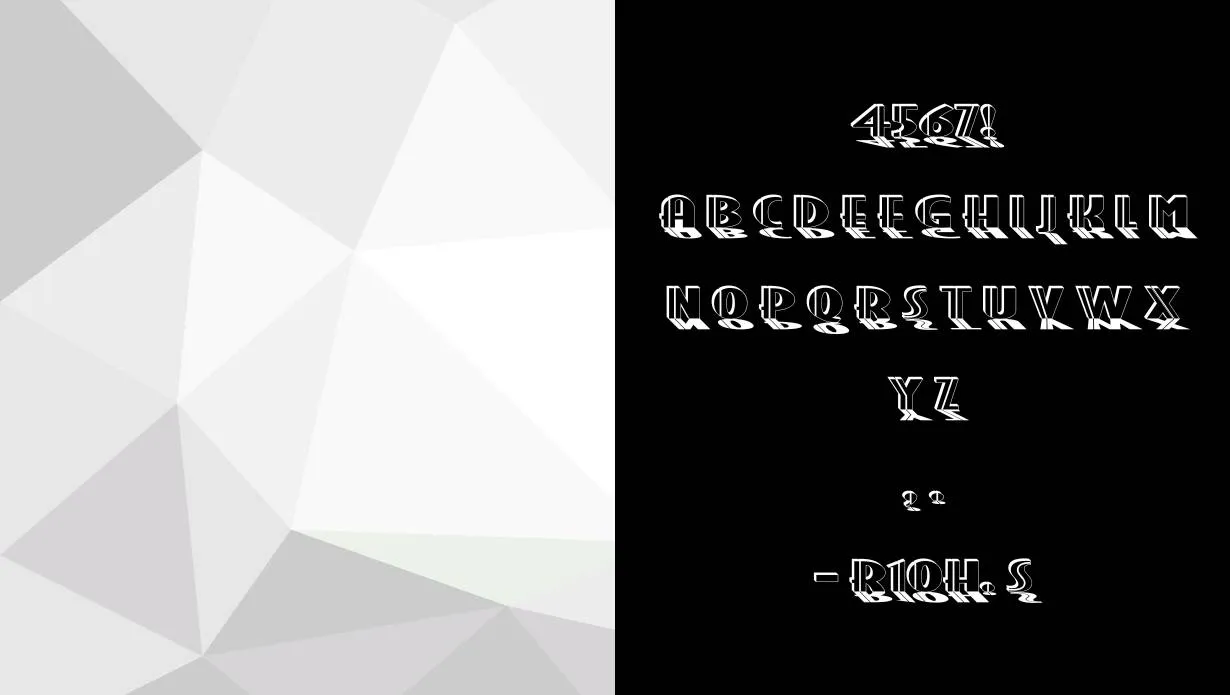
Grand Prix Font embodies the spirit of speed and competition with its sleek and streamlined design. This font is inspired by the world of racing, featuring dynamic letterforms that convey a sense of movement and excitement.
Ideal for projects related to motorsports, events, or any design that requires a fast-paced aesthetic, Grand Prix Font stands out with its bold and futuristic style.
| Name | Grand Prix Font |
| Designer | Nick's Fonts |